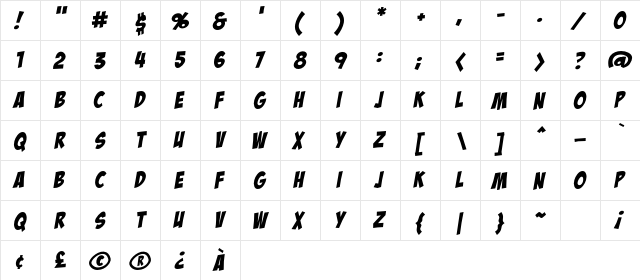
BadaBoom BB Regular
| Foundry | Nate Piekos. Blambot.com |
| Designer | Nate Piekos |
BadaBoom BB is a composed and adaptable typeface that performs quietly and consistently across a wide range of design contexts.